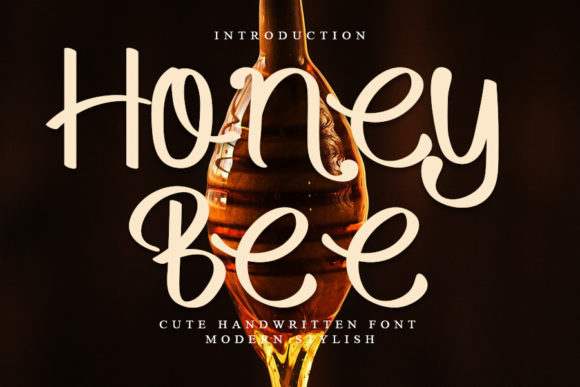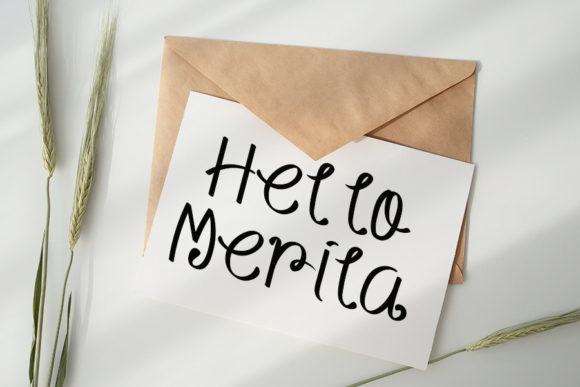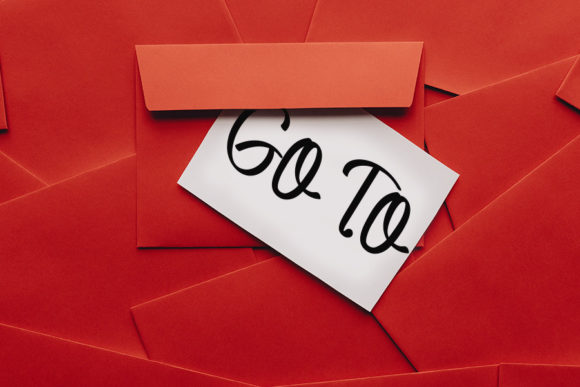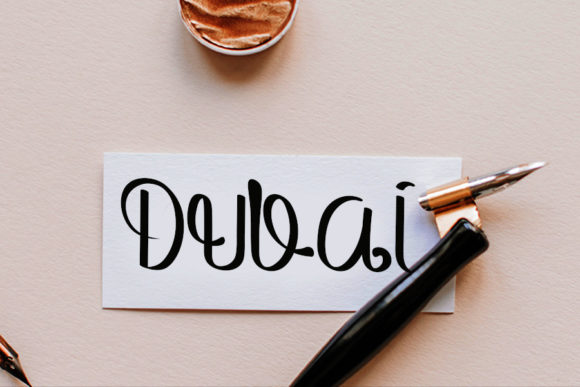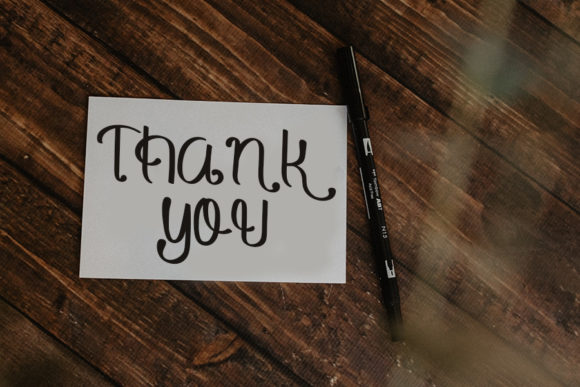
Honey Bee Font
About Honey Bee Font
Honey Bee is a charming and versatile handwritten font that adds a touch of warmth and elegance to your designs. With its smooth and well-rounded letterforms, this font exudes a modern and stylish vibe, making it suitable for a wide range of applications.
The beauty of Honey Bee lies in its simplicity and legibility. The clean lines and balanced proportions of each letter make it a great choice for branding projects, where you want to create a memorable and professional impression. It can be used to design logos, business cards, and other brand materials that need a personal and authentic touch.
When it comes to invitations and stationery, Honey Bee brings a touch of elegance and sophistication. Its flowing and graceful strokes create a sense of charm and beauty, making it ideal for wedding invitations, greeting cards, and other special occasion stationery. The font’s versatility allows it to adapt to different themes and styles, from romantic and whimsical to modern and minimalist.
Social media posts and graphics also benefit from Honey Bee’s modern look. It adds a personal and authentic touch to your visuals, making them stand out in a crowded online space. Whether you’re creating Instagram quotes, Pinterest graphics, or Facebook banners, Honey Bee will infuse your designs with a warm and inviting feel.
The versatility of Honey Bee extends beyond these applications. Its clean and legible nature makes it suitable for various design projects, including packaging, posters, blog headers, and more. It’s a font that can effortlessly enhance the visual appeal of any design.
Embrace the beauty and versatility of Honey Bee and let it bring a touch of modern elegance to your projects. Whether you’re aiming for a sophisticated look or a more casual and friendly vibe, this handwritten font will add a special charm to your designs and captivate your audience.